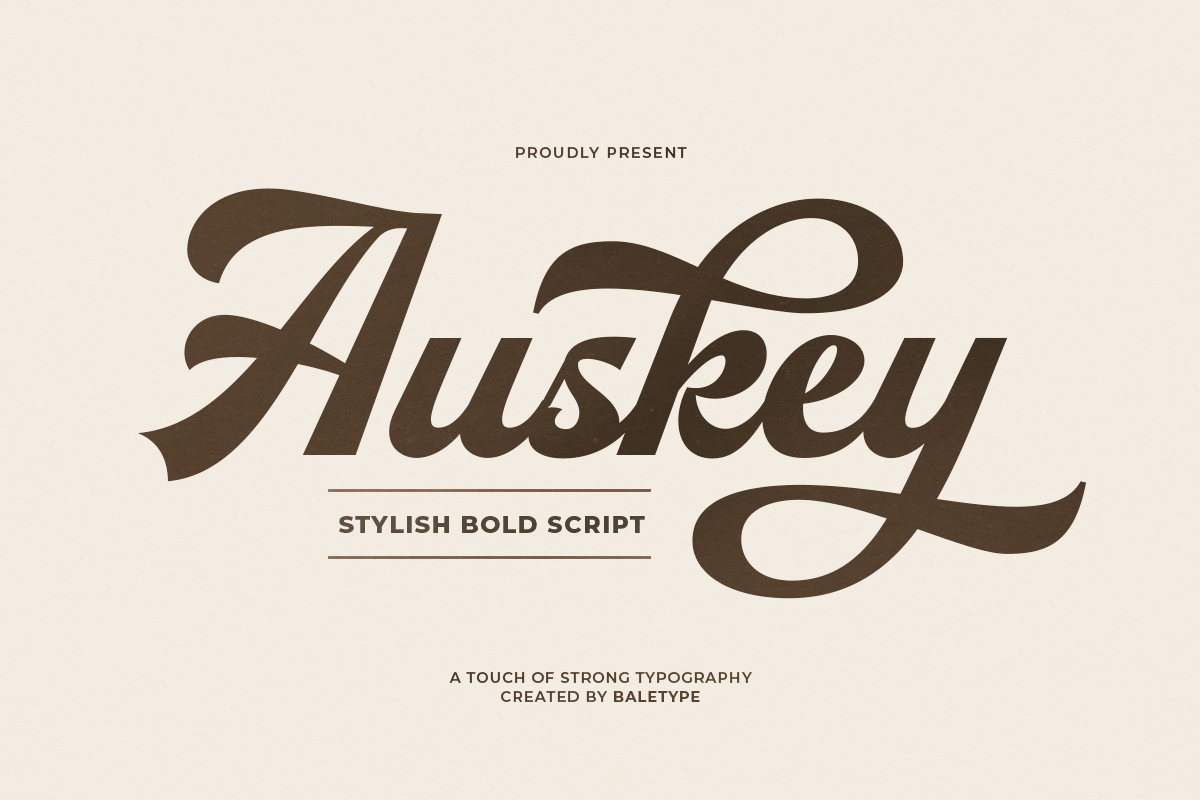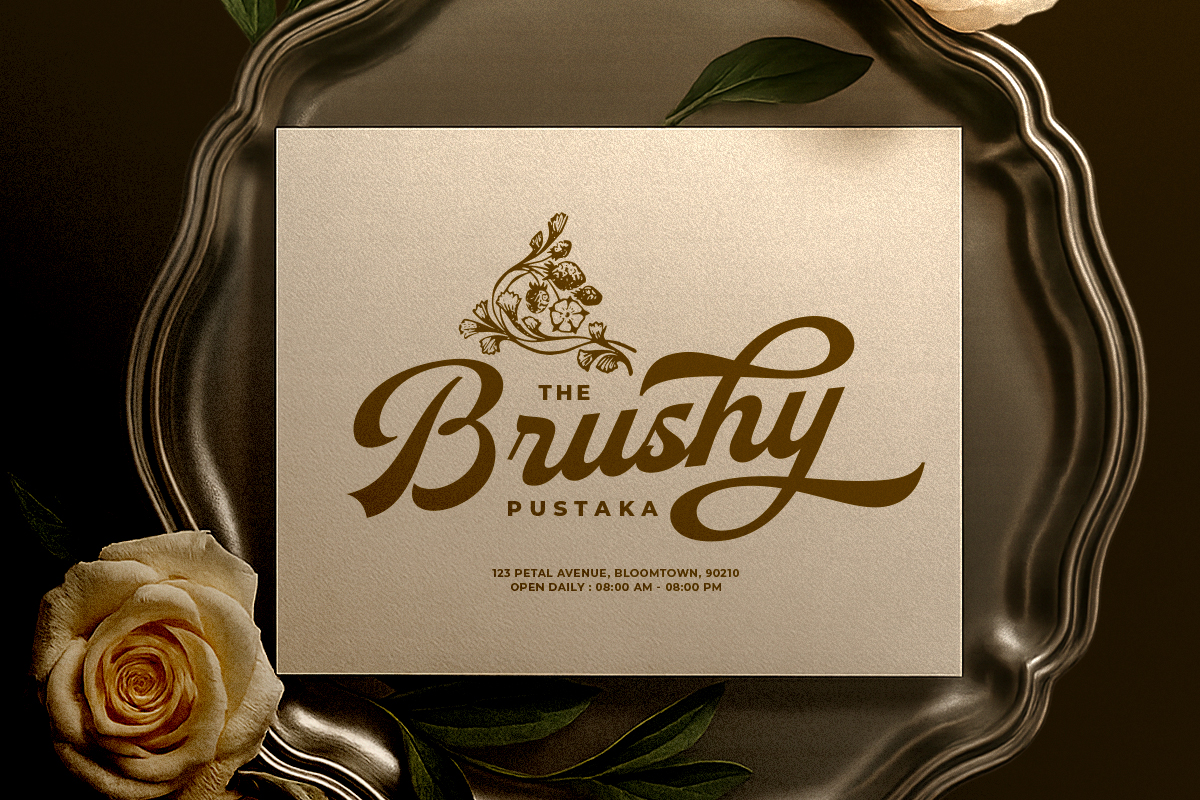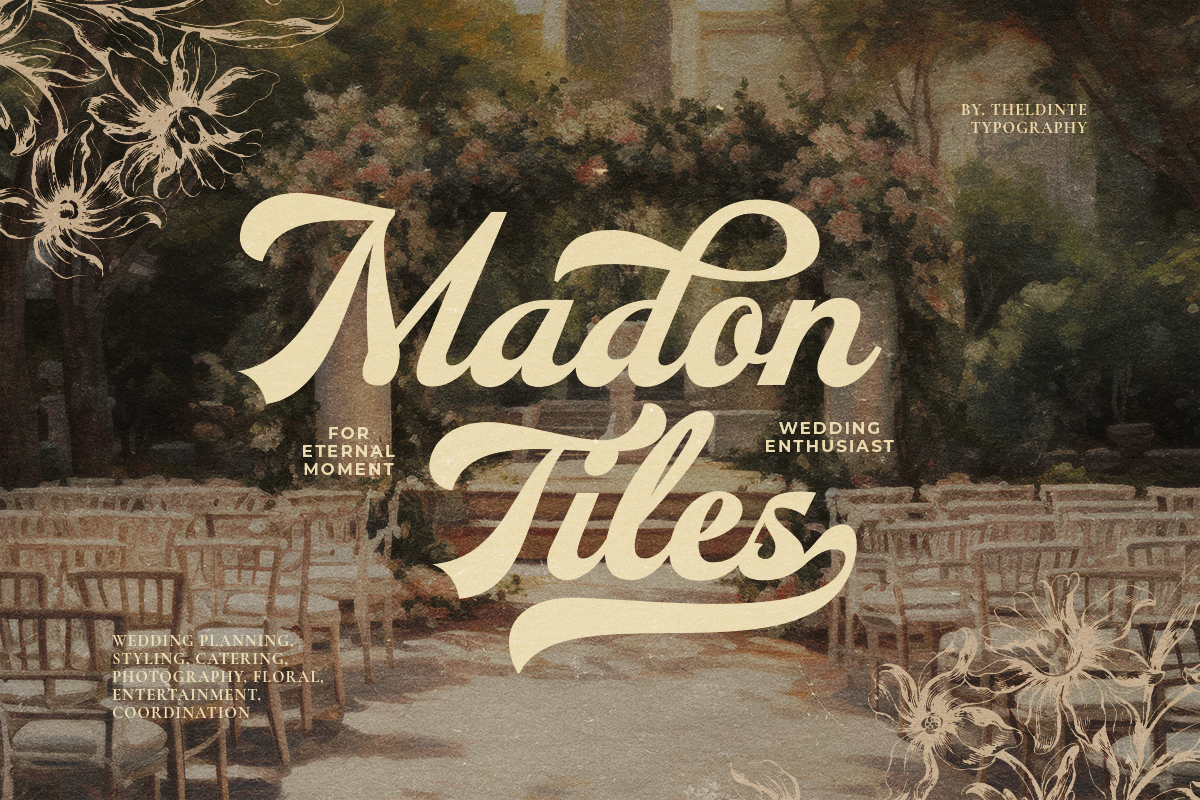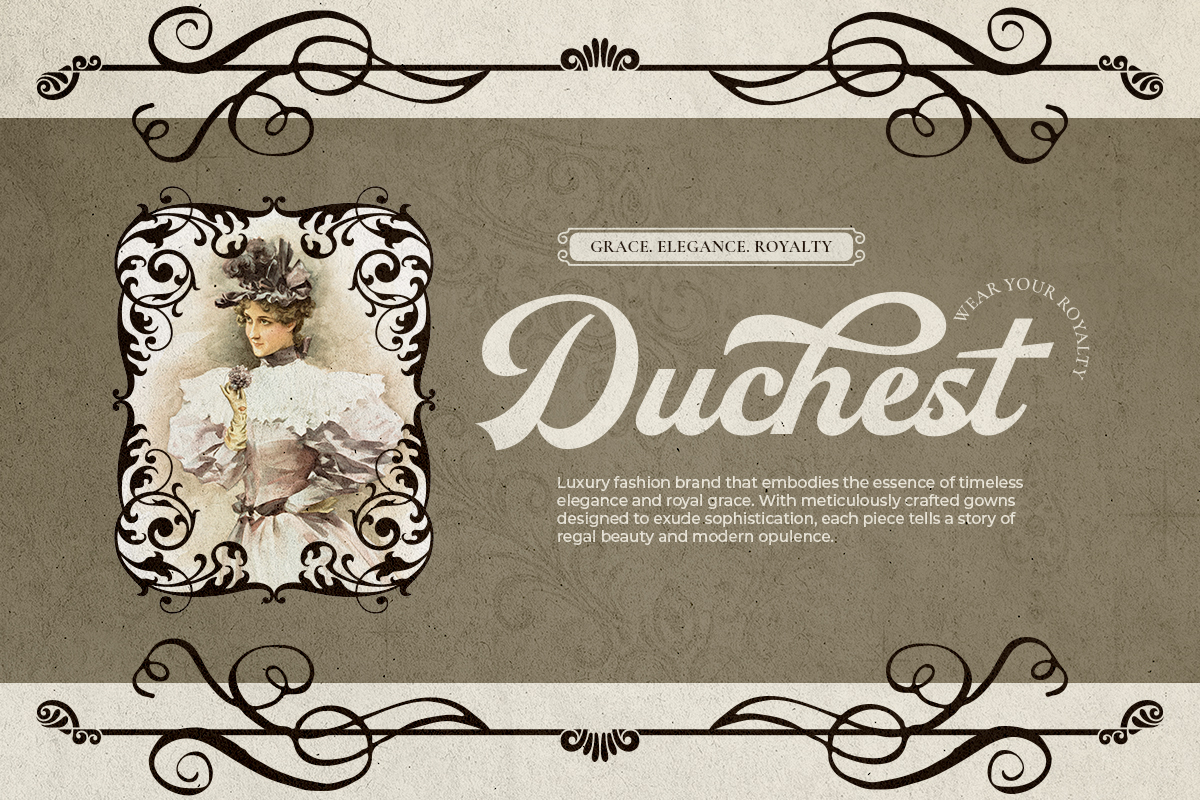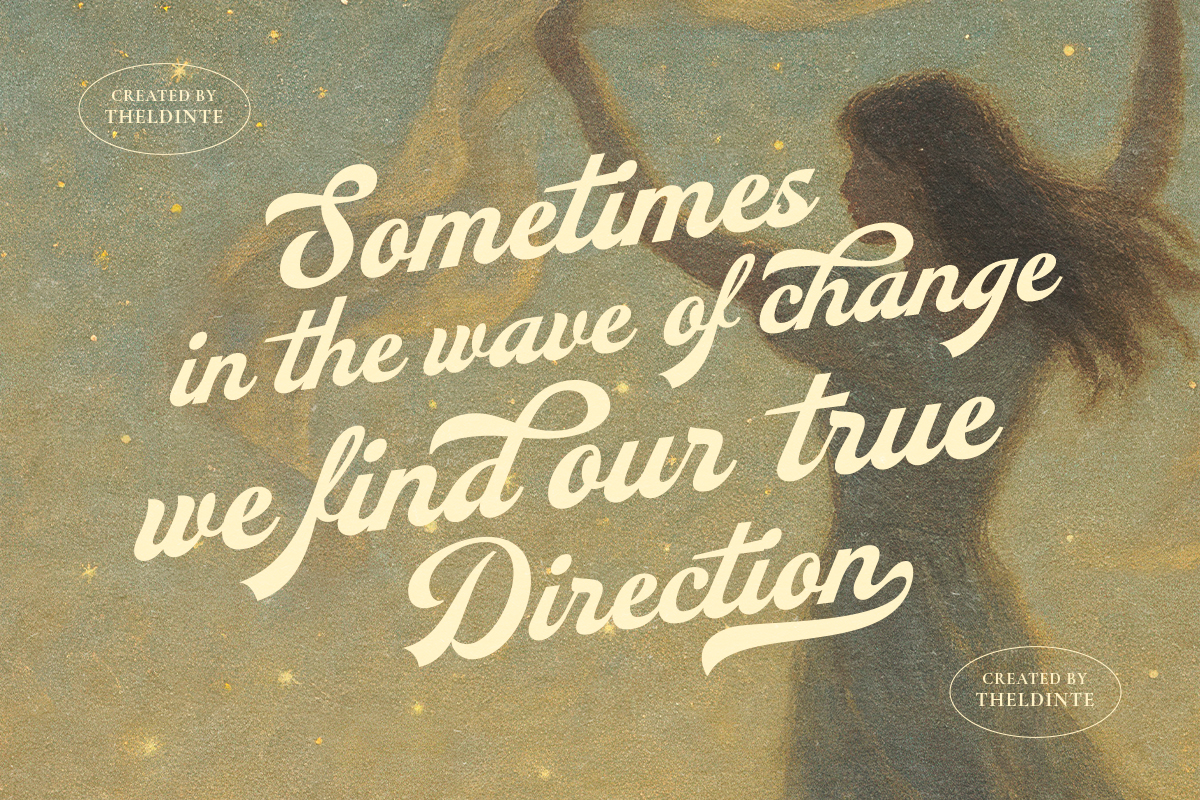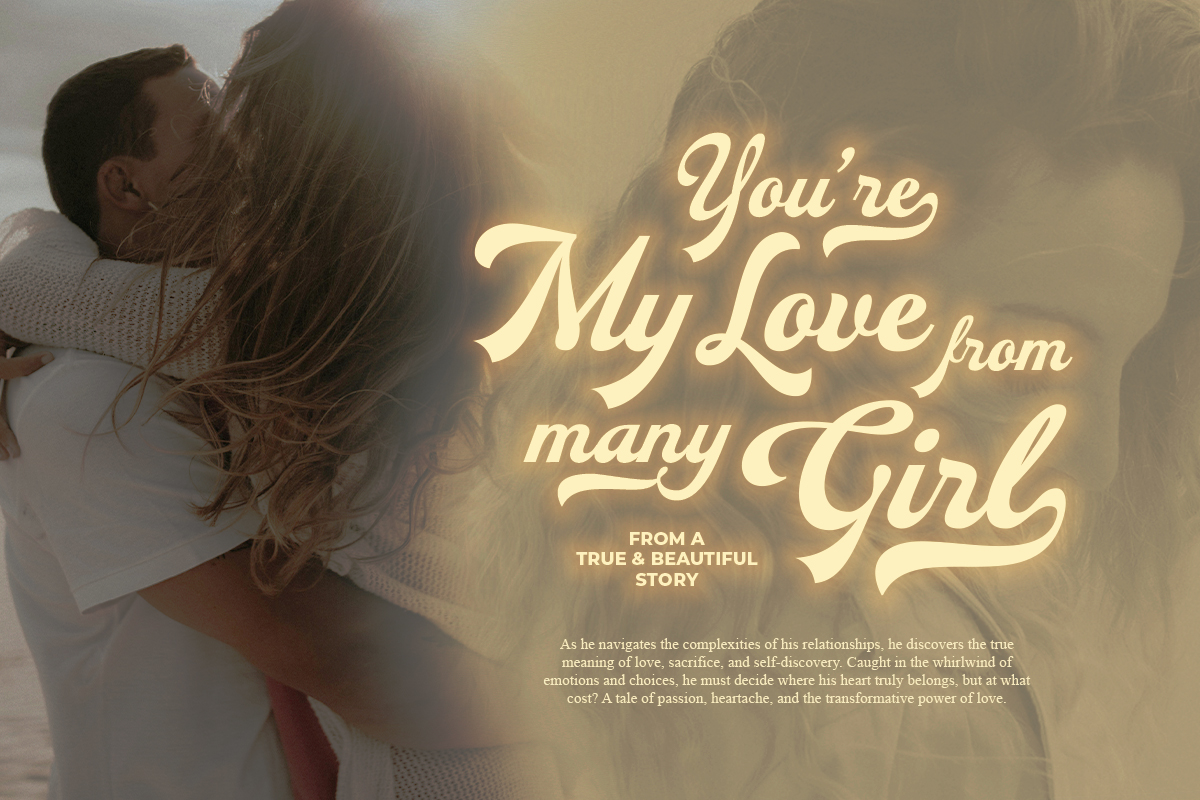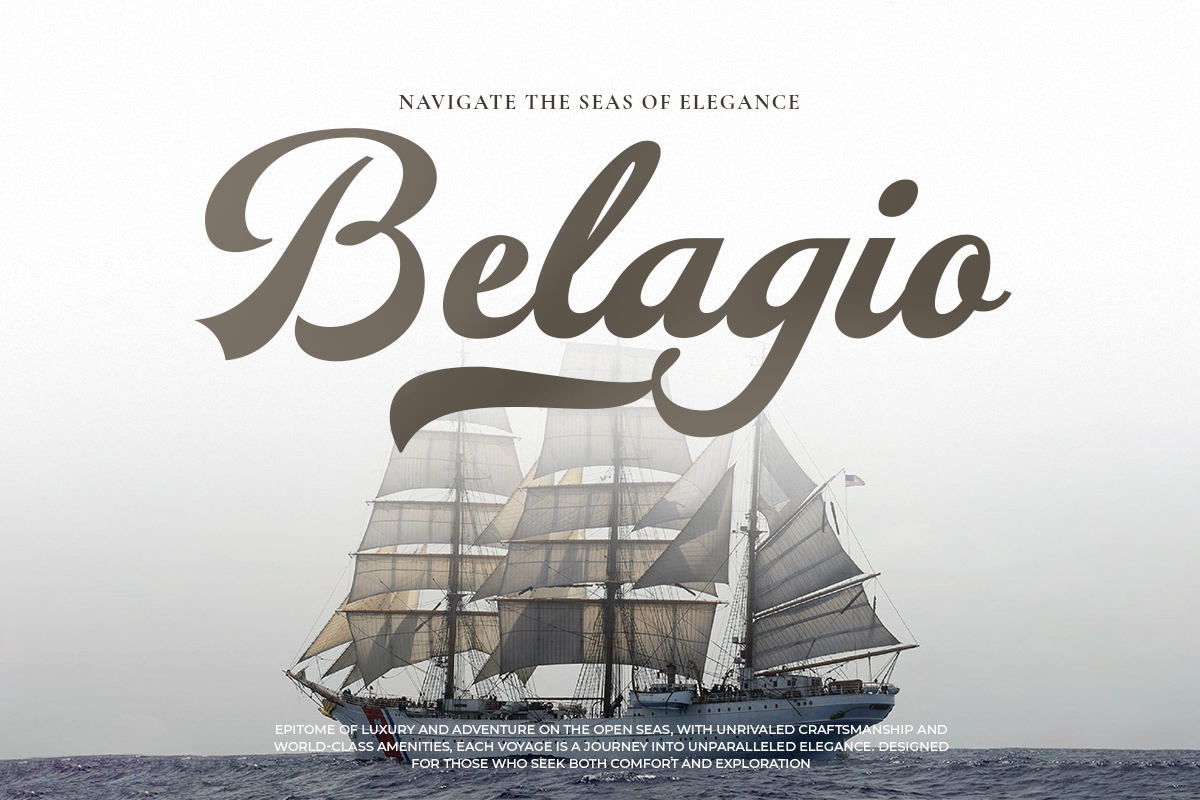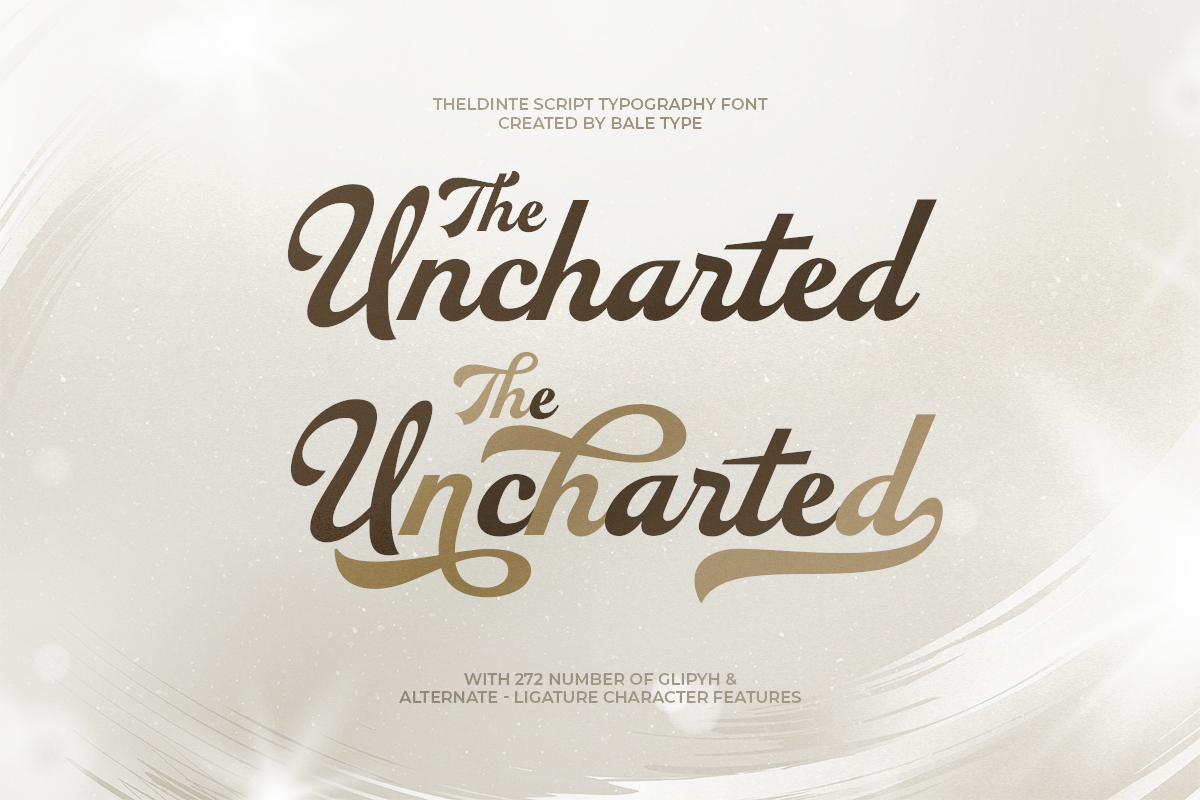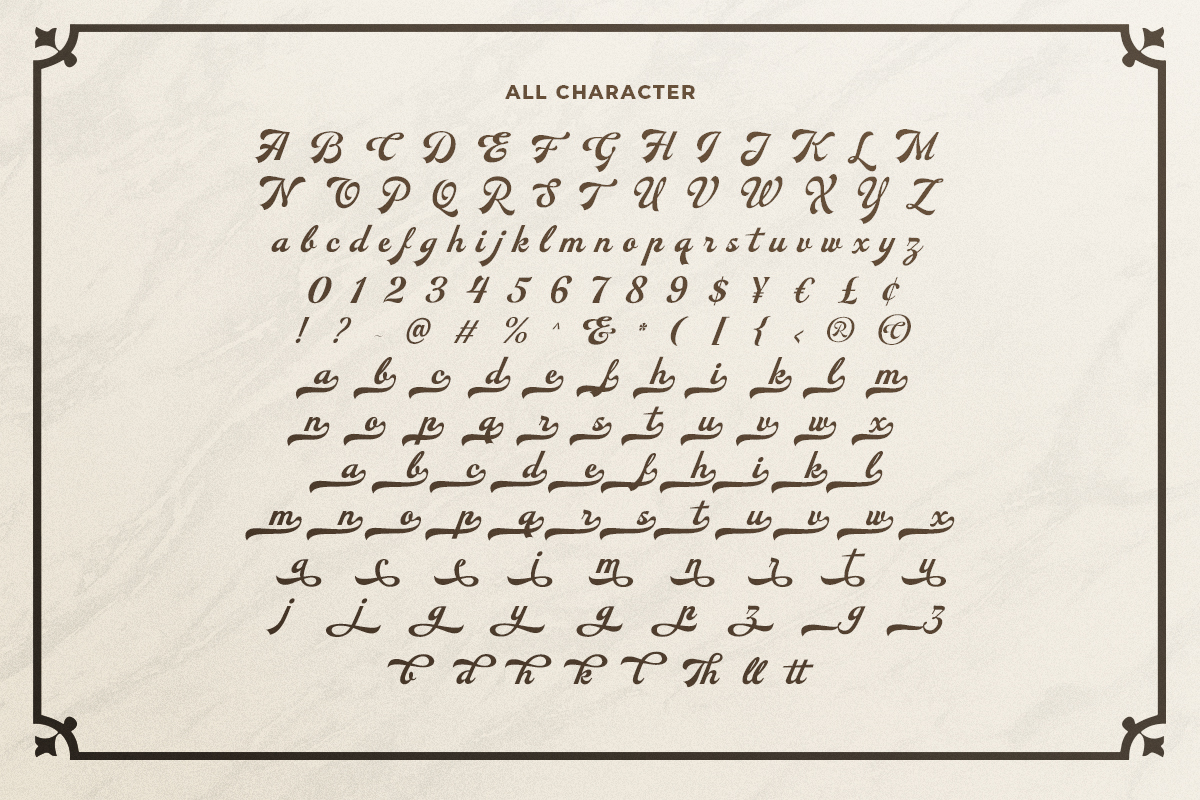
Auskey - Stylish Bold Script
Auskey is a bold and clean script with a unique and stylish style that brings a retro and elegant charm to your designs. Perfect for logotypes, quotes, branding, and even wedding invitations, this font adds character and personality to any project. It includes a variety of alternates to help you create eye-catching compositions with ease. Plus, it supports multiple languages, making it versatile and ready for any creative use.
Auskey – Stylish Bold Script
Auskey is a bold and clean script with a unique and stylish style that brings a retro and elegant charm to your designs.